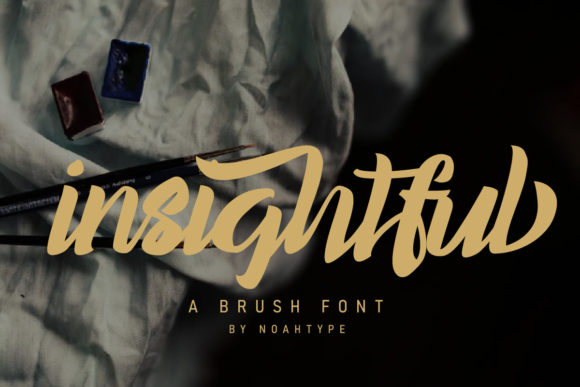
Journey into the realm of exquisite typography with Insightful, an enchanting script font that embodies the very essence of elegance. Its contemporary spirit and impeccable form, reminiscent of timeless classic calligraphy, will cast a spell on your designs.
As a creation of the esteemed NoahType, Insightful is a testament to the artistry and precision that define the finest fonts. Its captivating curves and flourishing swashes evoke a sense of grace and sophistication, making it the perfect choice for adding a touch of timeless beauty to your projects.
But Insightful is not merely a pretty face; it's a powerhouse of functionality. PUA-encoded, it grants you effortless access to all of its glyphs and swashes, empowering you to unleash your creativity and craft designs that radiate charm and distinction.
Whether you seek to adorn your wedding invitations with a touch of romance, elevate your branding with a dash of sophistication, or simply desire a font that will make your words dance with joy, Insightful is your answer.
With Insightful, the possibilities are endless. Let your imagination soar and witness the transformative power of typography.
So, embark on this typographic adventure today and experience the magic of Insightful. Allow its elegant curves and captivating swashes to elevate your designs to new heights of beauty and impact.